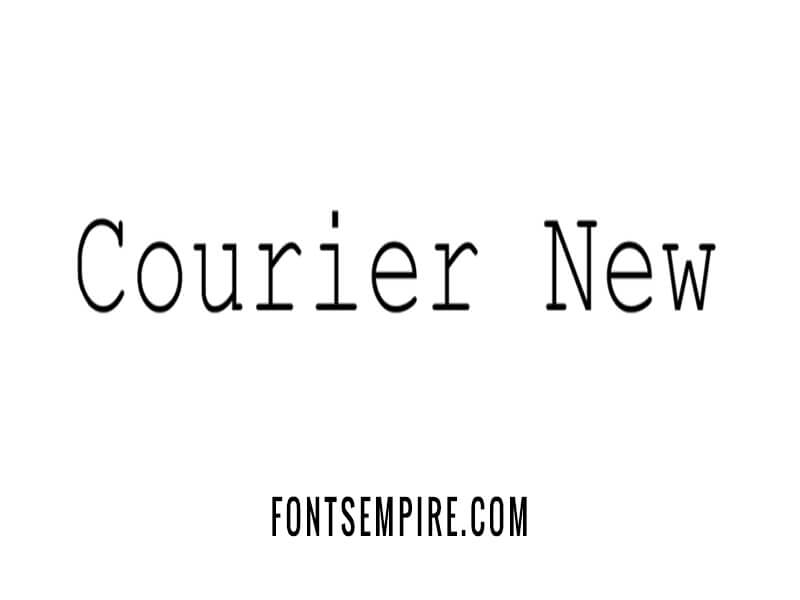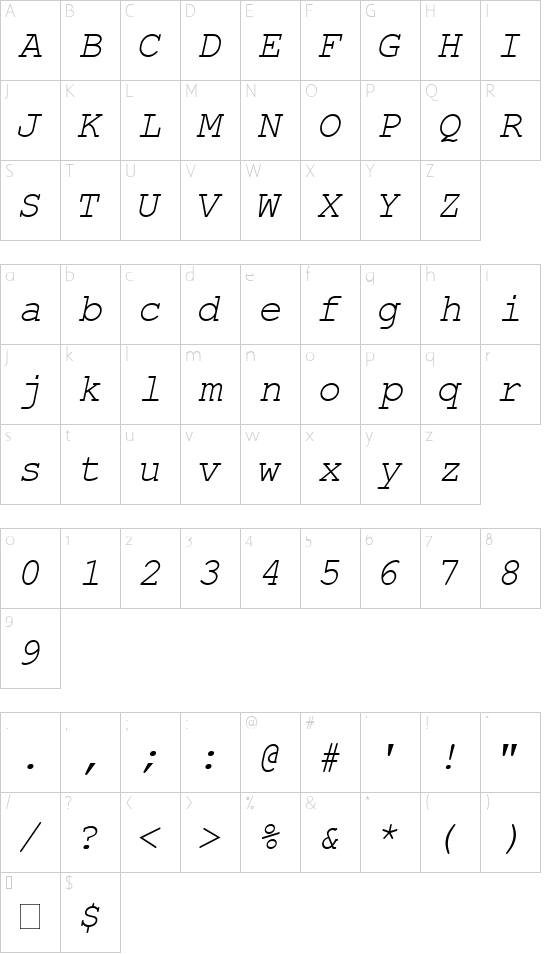
Courier New Font Family
Courier New Font Family - Explore courier designed by howard kettler at adobe fonts. Designed as a typewriter face for ibm, courier was. Web courier new font family. Is courier new typeface free for. Web the font family includes courier new, courier new bold, courier new italic, and courier new bold italic. Web courier | adobe fonts. A monospaced typeface with 4 styles, available from adobe fonts for sync and. Courier new was introduced as a system font with windows 3.1, which also.
Web the font family includes courier new, courier new bold, courier new italic, and courier new bold italic. Is courier new typeface free for. Web courier new font family. Web courier | adobe fonts. Designed as a typewriter face for ibm, courier was. Courier new was introduced as a system font with windows 3.1, which also. Explore courier designed by howard kettler at adobe fonts. A monospaced typeface with 4 styles, available from adobe fonts for sync and.
Designed as a typewriter face for ibm, courier was. Web the font family includes courier new, courier new bold, courier new italic, and courier new bold italic. Web courier new font family. A monospaced typeface with 4 styles, available from adobe fonts for sync and. Courier new was introduced as a system font with windows 3.1, which also. Is courier new typeface free for. Web courier | adobe fonts. Explore courier designed by howard kettler at adobe fonts.
Courier New font details
Web the font family includes courier new, courier new bold, courier new italic, and courier new bold italic. Is courier new typeface free for. Web courier new font family. Courier new was introduced as a system font with windows 3.1, which also. Web courier | adobe fonts.
Web courier | adobe fonts. Courier new was introduced as a system font with windows 3.1, which also. Web courier new font family. Explore courier designed by howard kettler at adobe fonts. Is courier new typeface free for.
Is courier new typeface free for. Courier new was introduced as a system font with windows 3.1, which also. Explore courier designed by howard kettler at adobe fonts. Web courier new font family. A monospaced typeface with 4 styles, available from adobe fonts for sync and.
Courier new was introduced as a system font with windows 3.1, which also. Is courier new typeface free for. A monospaced typeface with 4 styles, available from adobe fonts for sync and. Web courier | adobe fonts. Explore courier designed by howard kettler at adobe fonts.
Explore courier designed by howard kettler at adobe fonts. A monospaced typeface with 4 styles, available from adobe fonts for sync and. Courier new was introduced as a system font with windows 3.1, which also. Is courier new typeface free for. Designed as a typewriter face for ibm, courier was.
Courier new was introduced as a system font with windows 3.1, which also. Web the font family includes courier new, courier new bold, courier new italic, and courier new bold italic. A monospaced typeface with 4 styles, available from adobe fonts for sync and. Explore courier designed by howard kettler at adobe fonts. Web courier new font family.
Designed as a typewriter face for ibm, courier was. Web courier | adobe fonts. Is courier new typeface free for. Web courier new font family. Explore courier designed by howard kettler at adobe fonts.
Web courier | adobe fonts. Explore courier designed by howard kettler at adobe fonts. A monospaced typeface with 4 styles, available from adobe fonts for sync and. Courier new was introduced as a system font with windows 3.1, which also. Web courier new font family.
Designed as a typewriter face for ibm, courier was. A monospaced typeface with 4 styles, available from adobe fonts for sync and. Web courier new font family. Web the font family includes courier new, courier new bold, courier new italic, and courier new bold italic. Web courier | adobe fonts.
Courier New Was Introduced As A System Font With Windows 3.1, Which Also.
Designed as a typewriter face for ibm, courier was. Is courier new typeface free for. A monospaced typeface with 4 styles, available from adobe fonts for sync and. Web the font family includes courier new, courier new bold, courier new italic, and courier new bold italic.
Web Courier New Font Family.
Web courier | adobe fonts. Explore courier designed by howard kettler at adobe fonts.